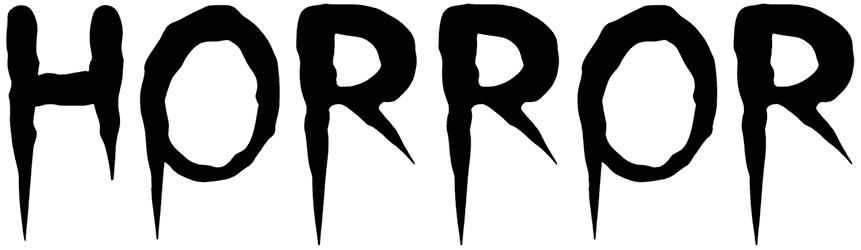
Horror Font
Horror font will serve a youthful and dangerous vibe for you with its sharp, blood-dripping elements. This satanic font has a set of sharp handwritten letters that give off a bold and punk look to your words. You can use it to write graffiti texts, mystery and horror movie titles, murder documentaries, and blog and channel banners. Horror only supports capital characters.